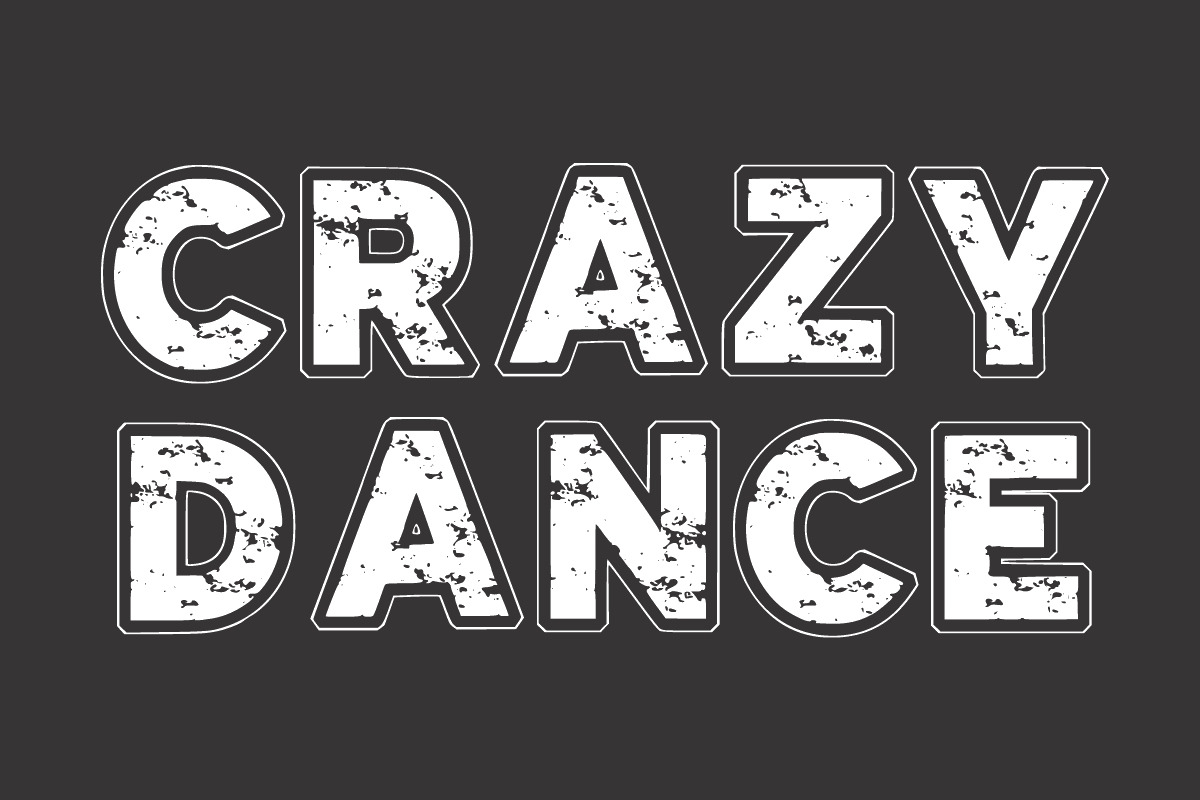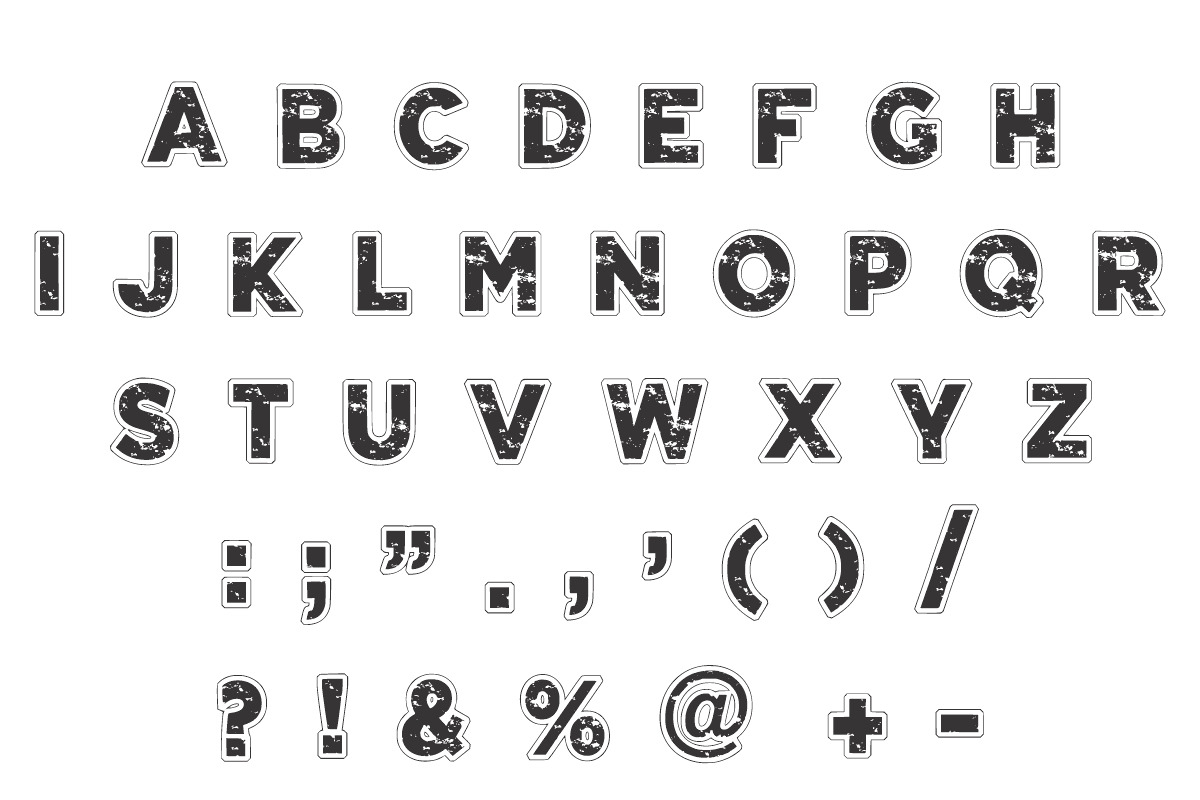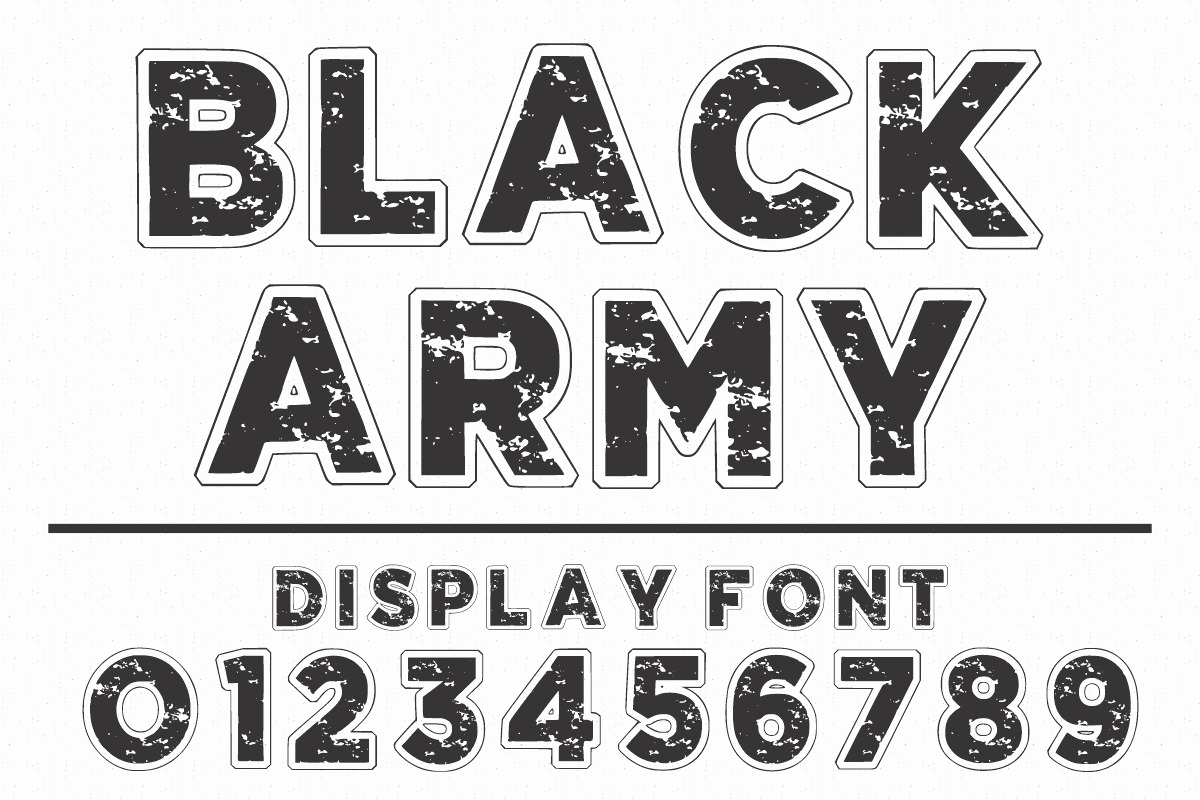
Black Army Font
Black Army is a bold, grunge display font with a raw, textured finish that feels perfectly worn and rugged.
Black Army is a strong, bold display font with a distressed, military-inspired design.
Featuring rugged textures and powerful letterforms, it’s the perfect font for creating commanding visuals with a vintage edge. Ideal for posters, war-themed graphics, masculine branding, tactical gear, and apparel designs.
The worn, stencil-like look adds authenticity and grit to any project. Whether you’re crafting labels, signage, or bold merchandise, Black Army delivers raw strength and historical character in every letter.